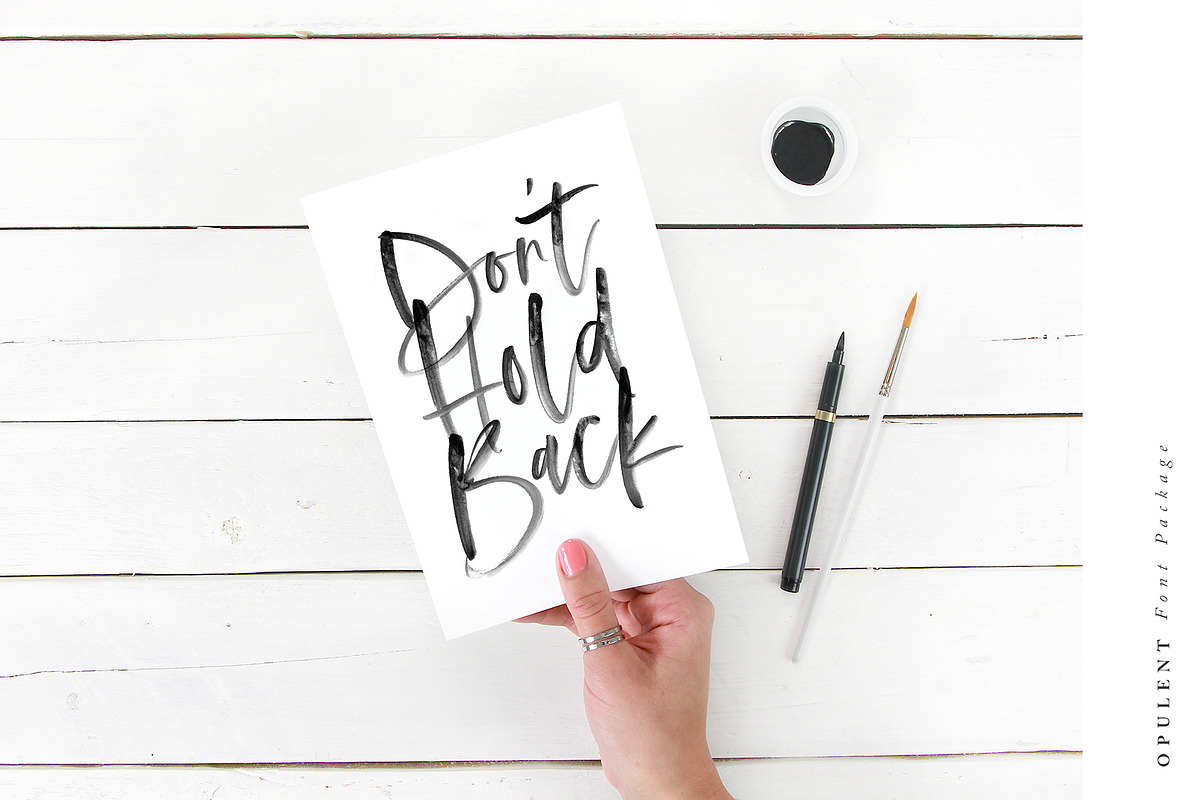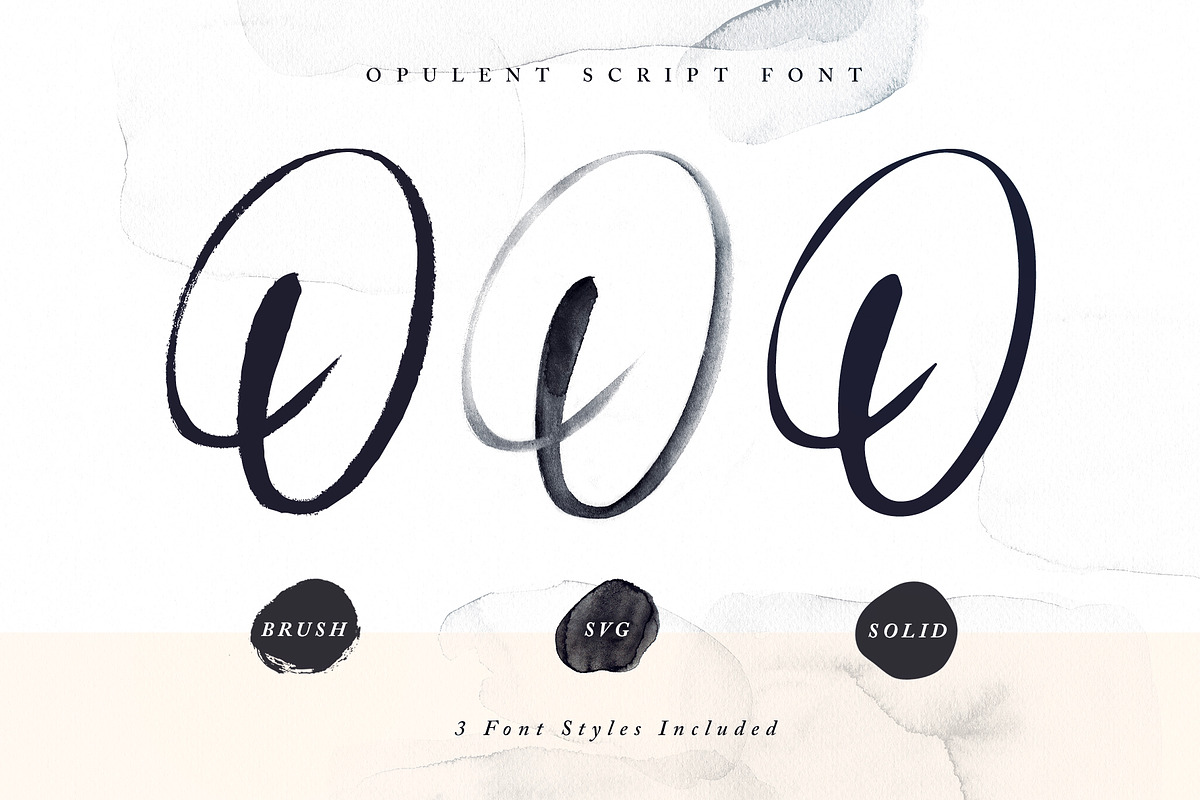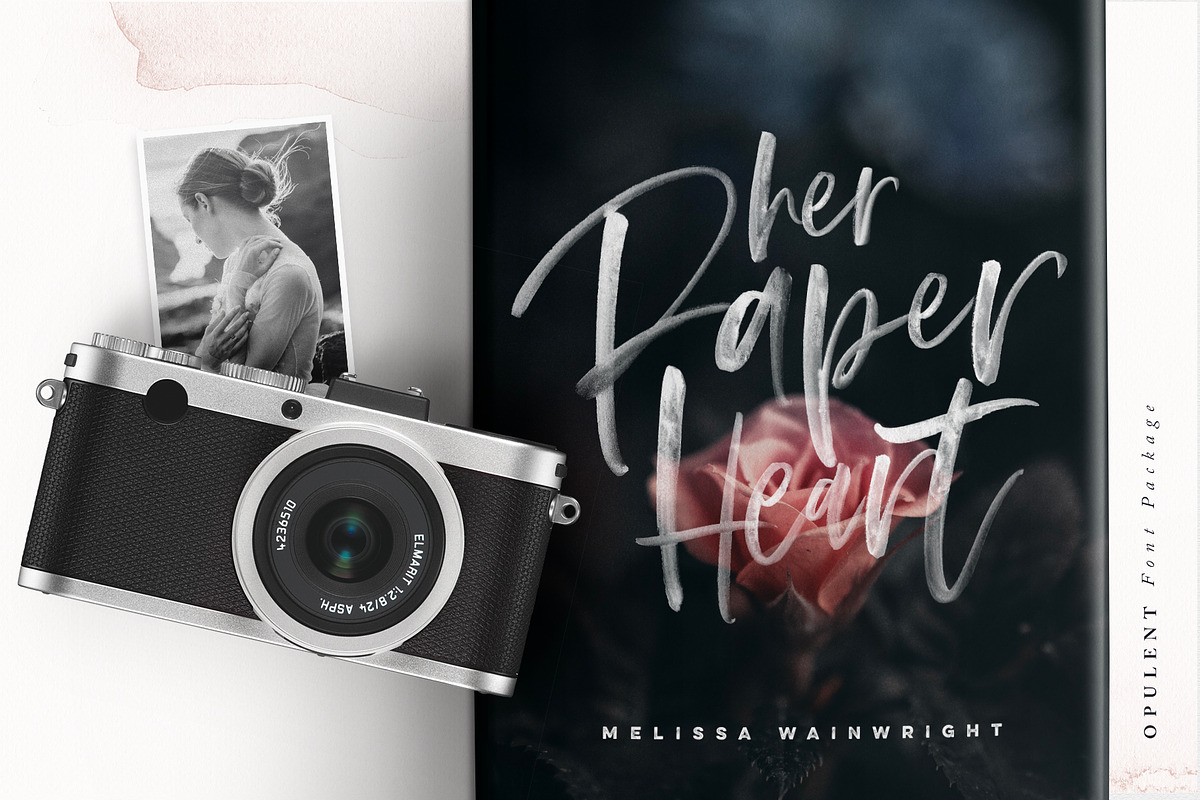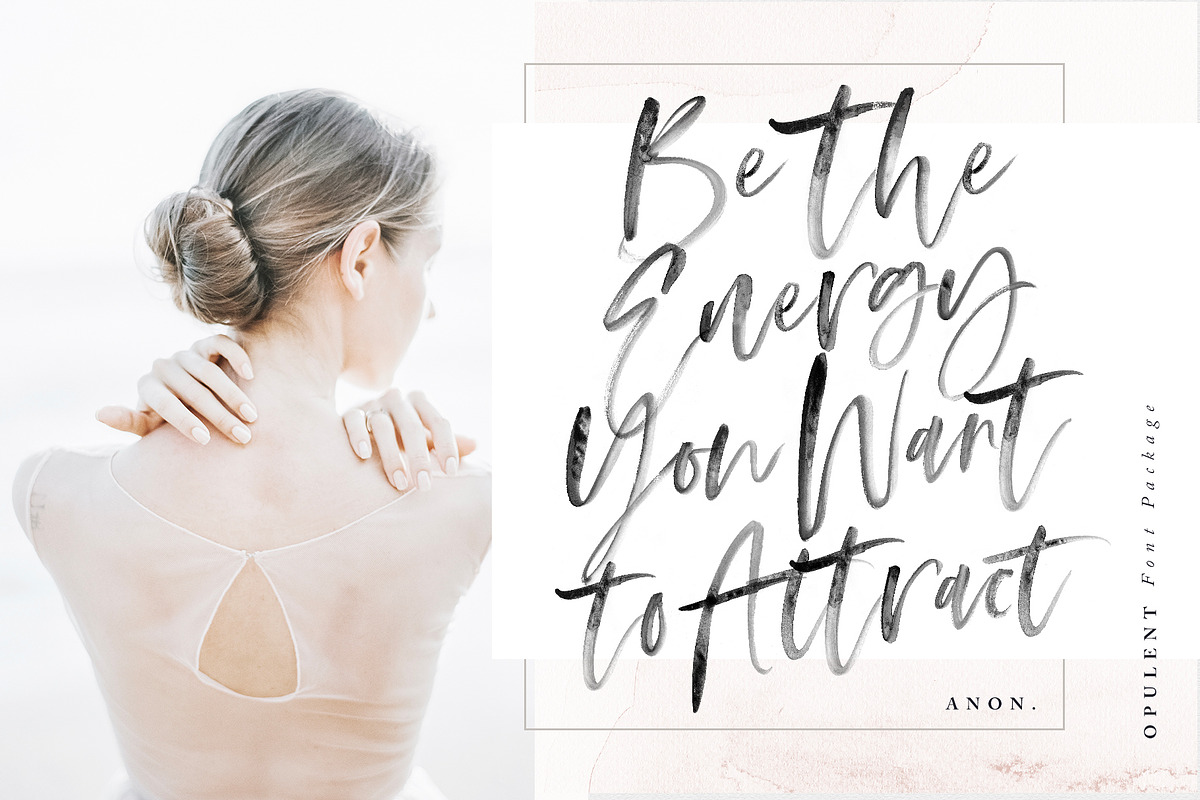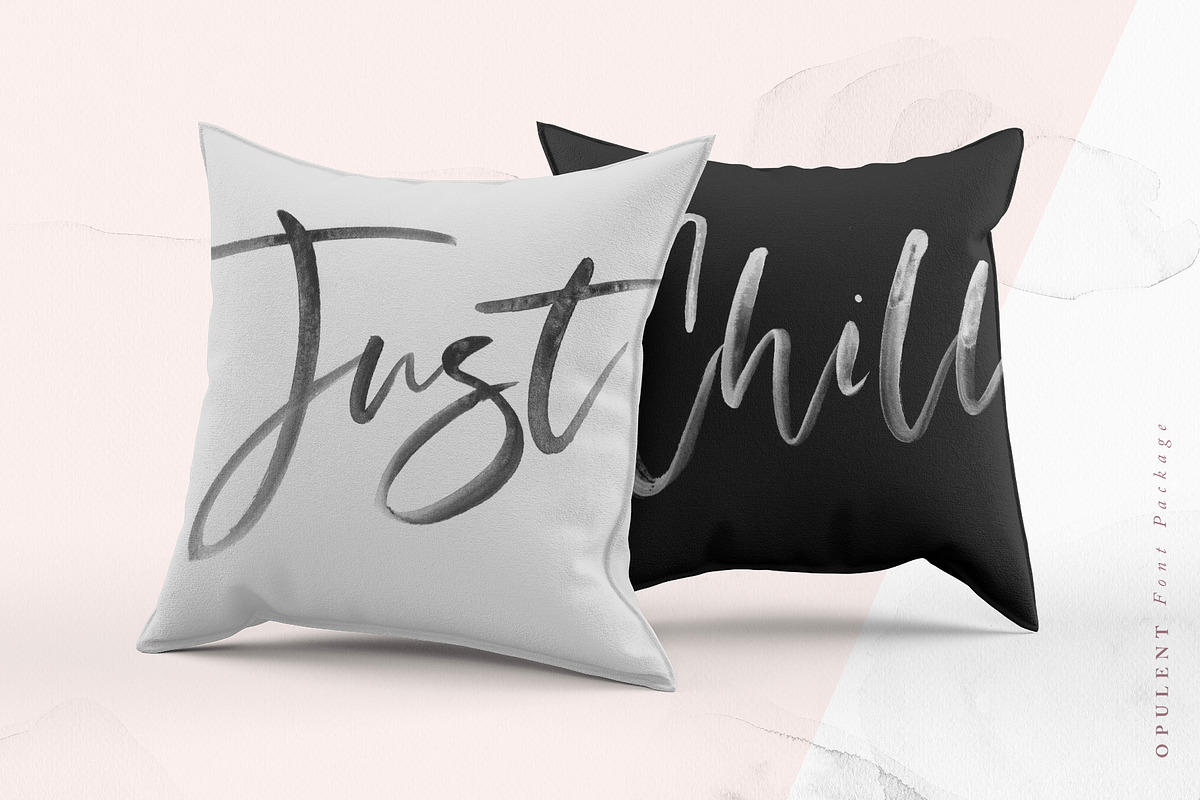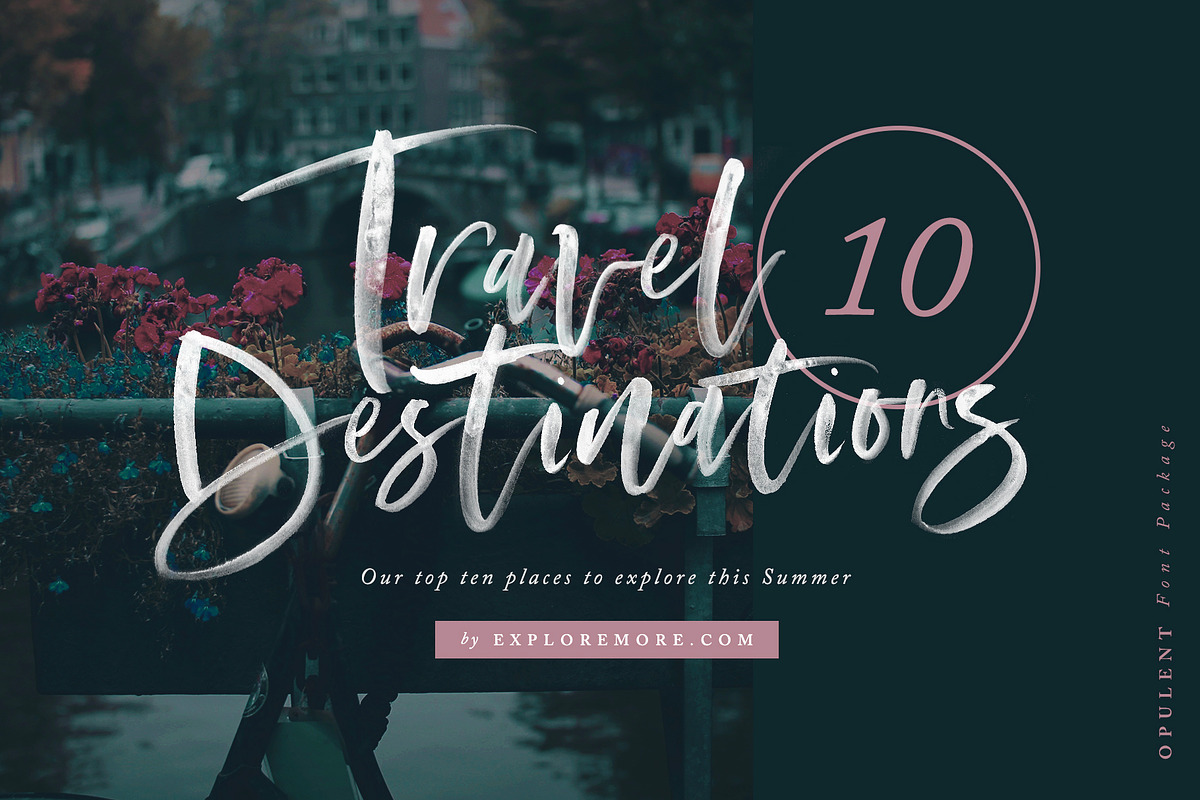
Opulent Font + SVG
Introducing; Opulent! A beautiful collection of hand-lettered modern calligraphy fonts. What makes Opulent so special is that it comes in 3 different forms; SVG, Brush & Solid - giving you a hugely versatile brush font which can be used in a range of different scenarios.
1. Opulent SVG Font • Use this version to re-create stunning hand-lettering with high-definition watercolour textures, completely built in to the font as a transparency. What you see in the preview images is exactly how the font types, with nothing added afterwards. Check out the video in the thumbnails above for a quick guide on how to use!
2. Opulent Brush Font • Use this version if you need the font in a traditional vector format, but still maintining an authentic rough paintbrushed finish to it's edges.
3. Opulent Solid Font • Use this version if you're looking for a silkier smooth finish to your text. Perfect for vinyl cutters such as Cricut and Silhouette Cameo.
Lowercase Alternates • All 3 styles of the font include an 'Alt' version, this has replaced all of the lowercase characters with a completely new set. If you wanted to avoid letters looking the same each time to recreate custom lettering, or try a different word shape, simply switch to the 'Alt' fonts for an additional layout option.